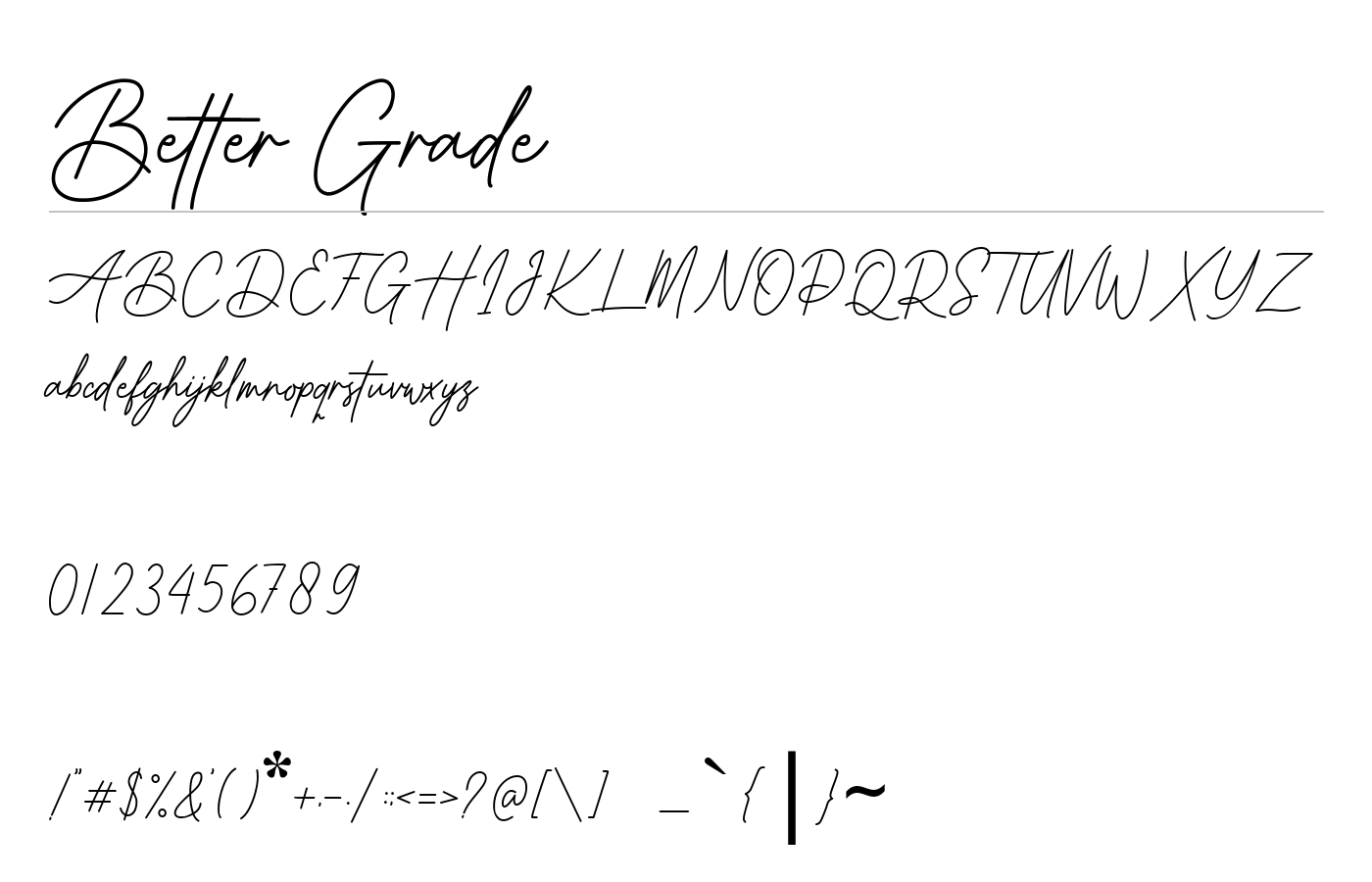
Better Grade is a delicate, modern script font with a smooth, handwritten style that feels elegant yet approachable. Its thin strokes and graceful, flowing letterforms make it perfect for branding, invitations, and logos that seek a personal, refined touch. This font works beautifully in designs where a stylish, light, and airy handwritten look is desired.
Better Grade Font
About Better Grade Font
| Font family | Better Grade Font |
| Designer | Nofi Sofyan Hadi |